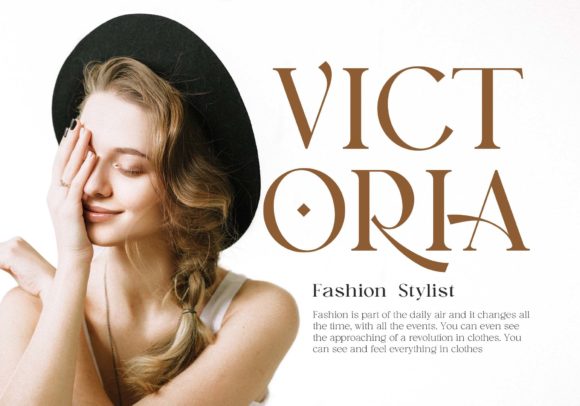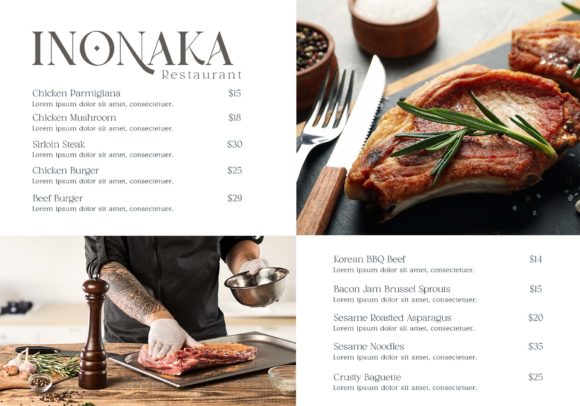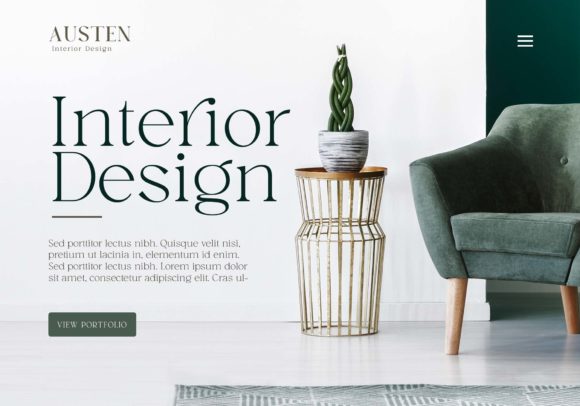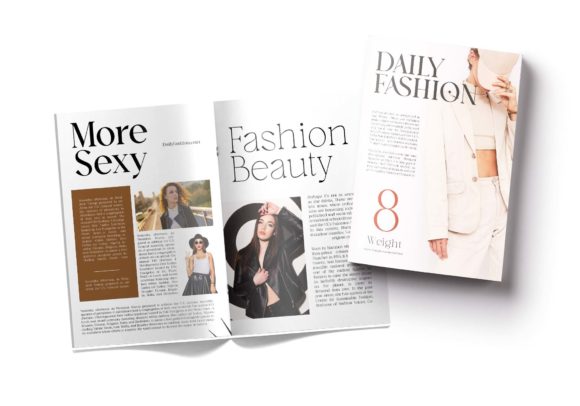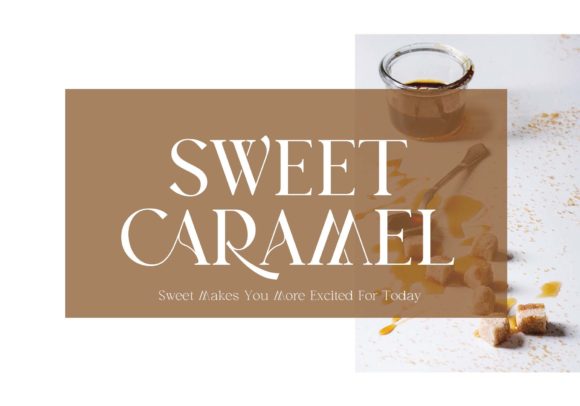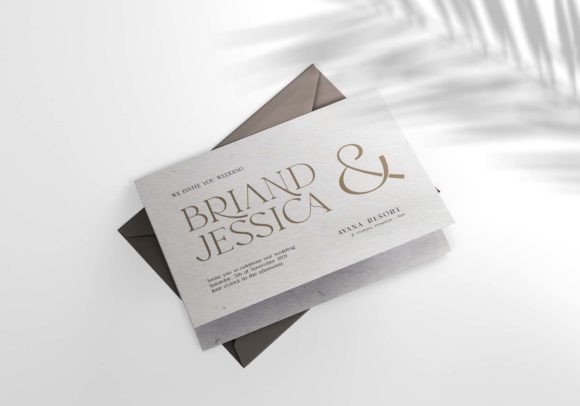
Austen Font: Elevate Your Designs with Elegance and Sophistication
In the world of typography, fonts play a crucial role in conveying the tone and personality of a design. For crafters, designers, and DIY enthusiasts, finding the perfect font can be a daunting task. However, if you’re looking for a stylish and thin lettered serif font that exudes elegance and sophistication, look no further than the Austen Font. In this article, we’ll explore the features, benefits, and uses of the Austen Font, and why it’s a must-have for any designer or crafter.
What is Austen Font?
Austen Font is a beautifully designed serif font that boasts a thin lettered style, making it perfect for designs that require a touch of elegance and refinement. Its classic and timeless look is inspired by traditional serif fonts, but with a modern twist that sets it apart from more traditional fonts. The font is named after the famous English novelist Jane Austen, known for her romantic and witty writings, which reflects the font’s charming and sophisticated personality.
Key Features of Austen Font
So, what makes Austen Font so special? Here are some of its key features:
- Thin lettered style: The font’s thin lettered style gives it a delicate and refined look that’s perfect for designs that require a touch of elegance.
- Serif font: The serif font style adds a classic and timeless touch to any design, making it perfect for traditional and modern designs alike.
- Stylish and sophisticated: The font’s stylish and sophisticated look makes it perfect for designs that require a high level of elegance and refinement.
- Versatile: The Austen Font is versatile and can be used for a wide range of designs, from wedding invitations to business cards.
Uses of Austen Font
So, what can you use the Austen Font for? The possibilities are endless! Here are some ideas to get you started:
- Wedding invitations: The Austen Font is perfect for wedding invitations, adding a touch of elegance and sophistication to your special day.
- Thank you cards: Express your gratitude in style with the Austen Font, perfect for thank you cards and other correspondence.
- Quotes: Add a touch of elegance to your quotes and sayings with the Austen Font, perfect for social media, blogs, and websites.
- Greeting cards: The Austen Font is perfect for greeting cards, adding a touch of sophistication and elegance to any occasion.
- Logos: Use the Austen Font to create a stylish and sophisticated logo for your business or brand.
- Business cards: Stand out from the crowd with the Austen Font, perfect for business cards and other marketing materials.
Why Choose Austen Font?
So, why choose the Austen Font over other fonts? Here are just a few reasons:
- Unique and distinctive: The Austen Font is a unique and distinctive font that will set your designs apart from the crowd.
- Elegant and sophisticated: The font’s elegant and sophisticated look makes it perfect for designs that require a high level of refinement.
- Versatile: The Austen Font is versatile and can be used for a wide range of designs, from traditional to modern.
- Easy to read: Despite its thin lettered style, the Austen Font is easy to read, making it perfect for body text and other written content.
In conclusion, the Austen Font is a stylish and thin lettered serif font that’s perfect for designers and crafters looking to add a touch of elegance and sophistication to their designs. With its classic and timeless look, versatility, and ease of use, it’s a must-have for any designer or crafter. Whether you’re creating wedding invitations, thank you cards, quotes, greeting cards, logos, or business cards, the Austen Font is the perfect choice. So why wait? Download the Austen Font today and elevate your designs to the next level!